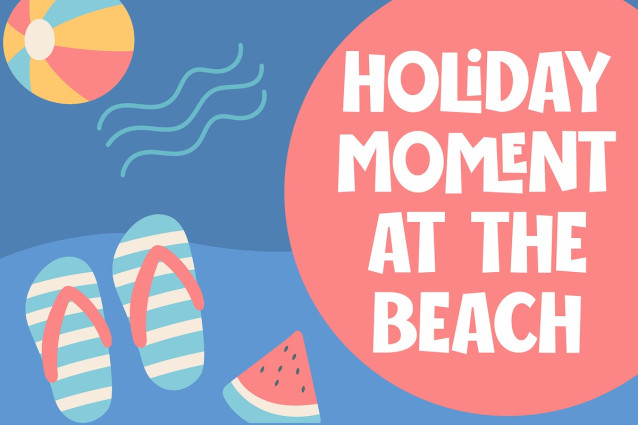
Sunroof & Summer Font
Sunroof & Summer Font is a summer Style font by Wildan Type. It has flowing letters that will give your designs a unique, simple, and sweet look. sunroof & Summer font is perfect; logos, greeting cards, a package design, a brand identity, craft design, any DIY project, book title, wedding invitation, packaging, and more.